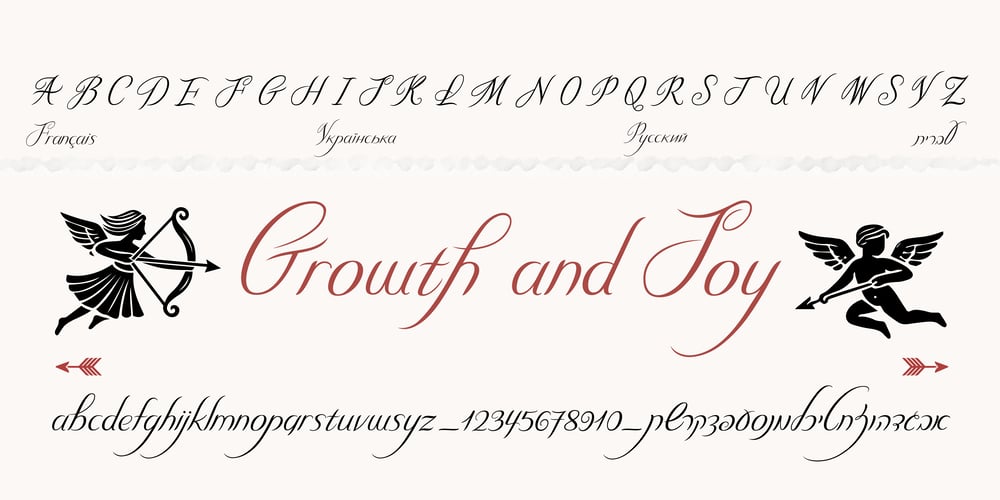
Lia Mia Font Family was designed by Lia Baratz and published by Lia Baratz Fonts. Lia Mia contains 1 styles and family package options. Mia Font is the culmination of an emotional and inspiring journey, blending classical beauty with modern innovation. This font captures a graceful flow, with soft curves and clean lines, all meticulously crafted to bring a touch of elegance and sophistication to any design project. Born from a desire to create a font that not only catches the eye but also stirs the heart, Mia Font is perfect for vintage-inspired designs, luxury branding, packaging, and event invitations. Each letter tells its own story, adding depth and character to your text. If you’re searching for a font that embodies uniqueness and personality, Mia Font is the perfect choice. It speaks the language of precision and emotion, bringing to life the sensitivity and artistry in every detail.